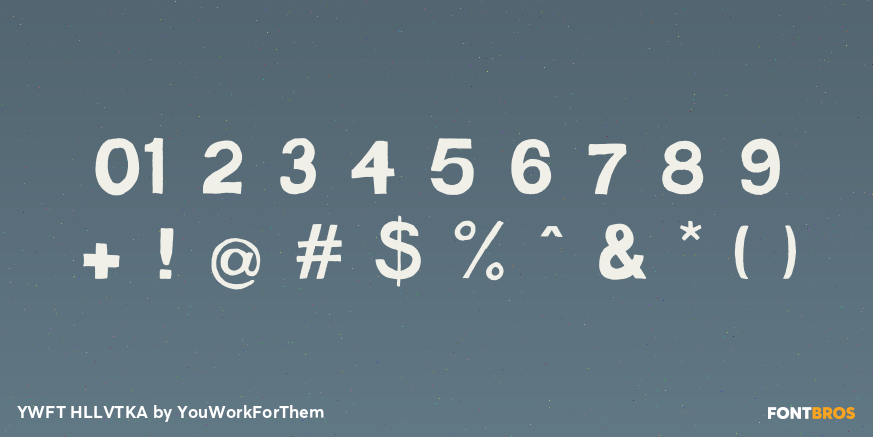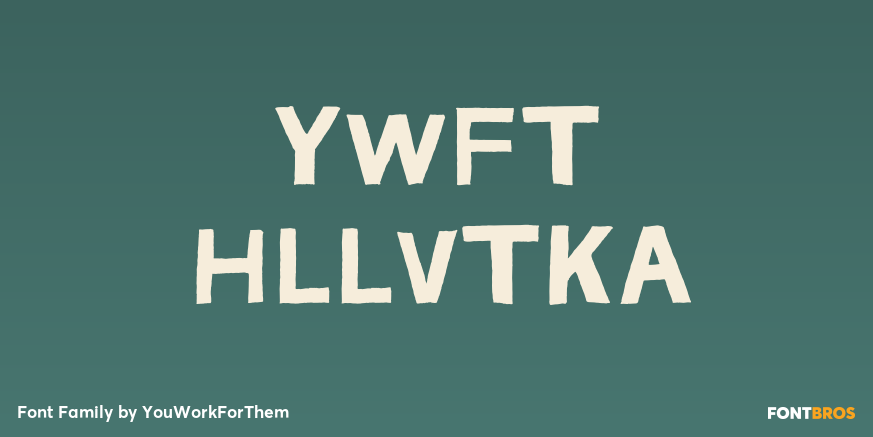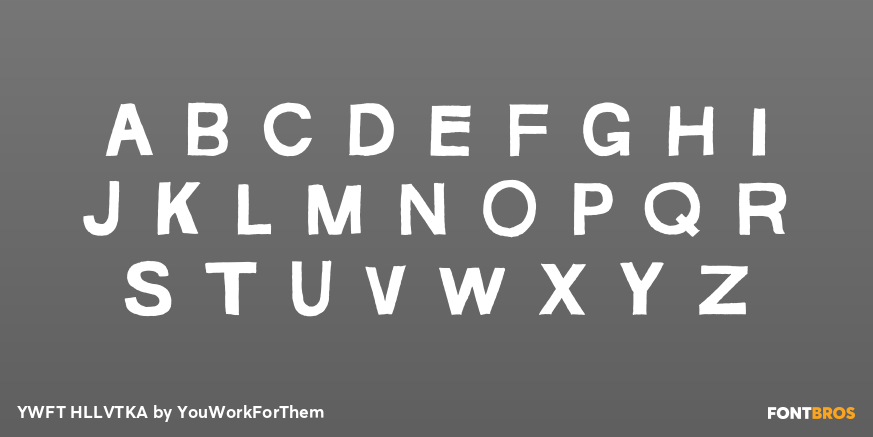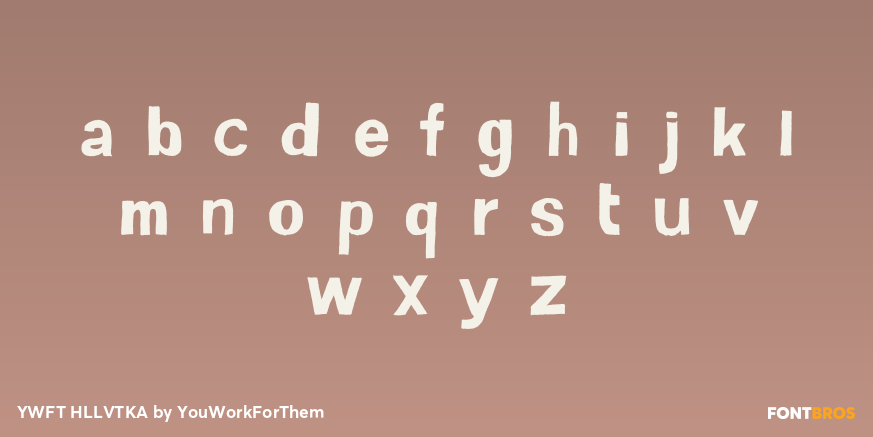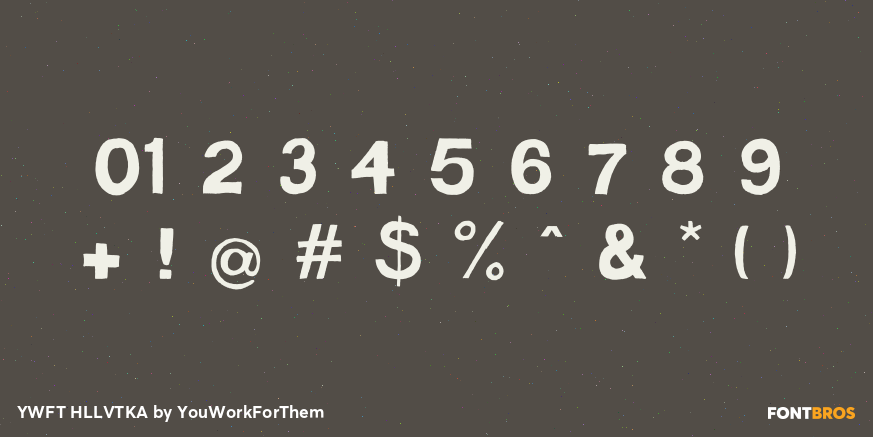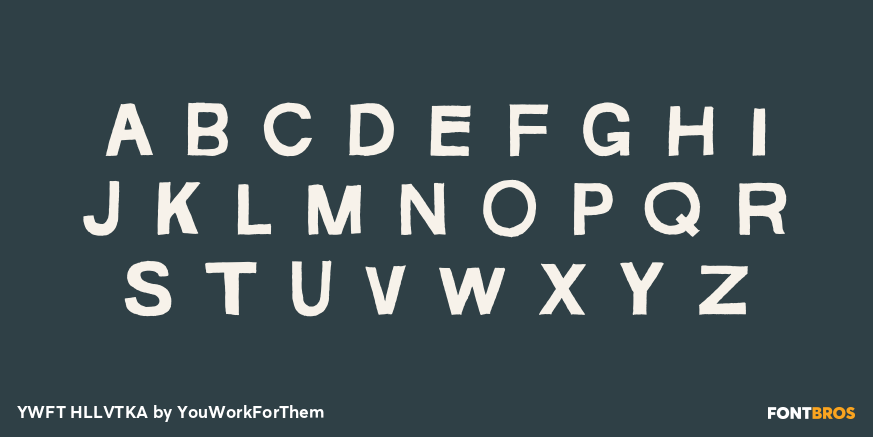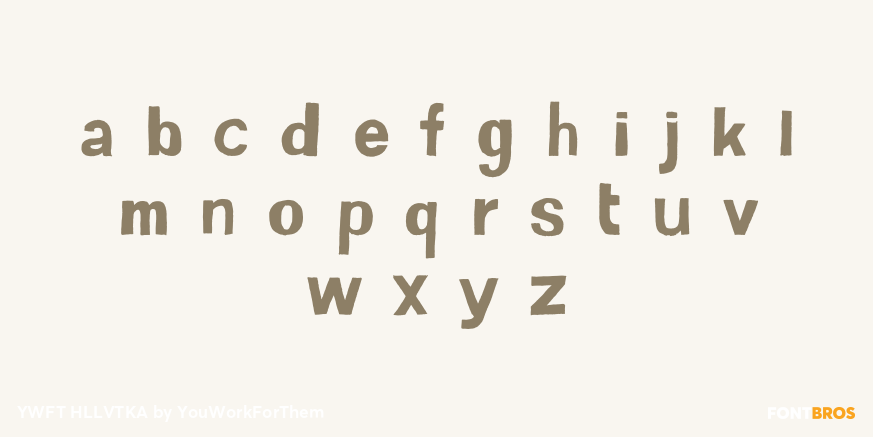
YWFT HLLVTKA
Font Family by YouWorkForThem
With great pride, we present this hand-drawn alphabet in both upper and lower case, derived from the beloved standard of all existing things: Helvetica. Originally hand drawn in 2007 by YouWorkForThem, we revisited these drawings in 2010 and developed them into a fully functional opentype release. YWFT HLLVTKA comes with two style options (normal and outline), with each style containing opentype stylistic alternates for upper case, lower case, numericals and punctuations. For years, YWFT HLLVTKA has topped our charts as a handset design, and designers love it. So now, when you buy the complete family of YWFT HLLVTKA, we include a free copy of the original handset design (eps file), which contains several more letter options for your enjoyment. Designed by YouWorkForThem.